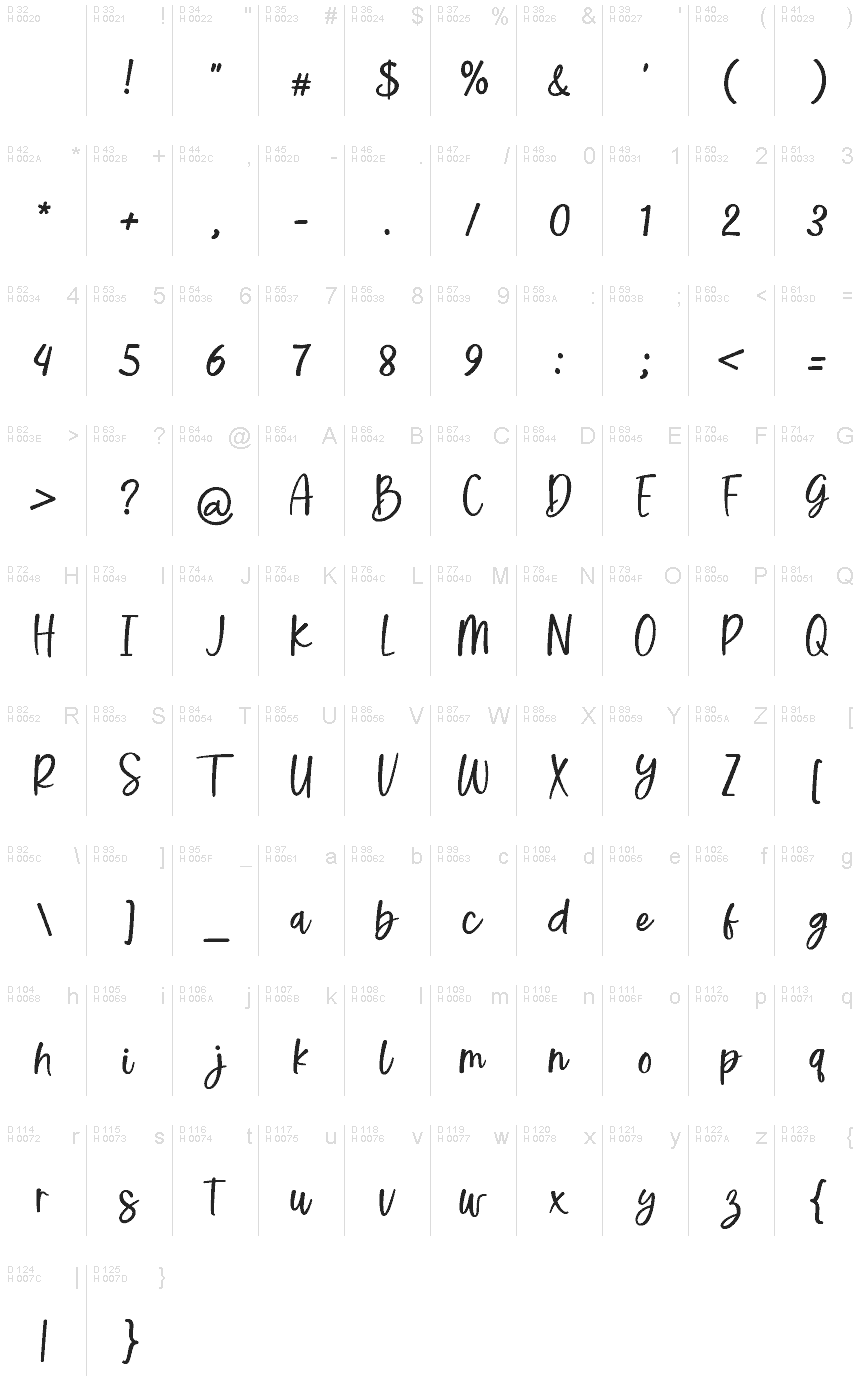
WisdomVacation
Wisdom Vacation font by UI Creative is a free handwritten font with a contemporary, casual, and friendly appearance. This expressive typeface presents modern handwriting style arrangements and is characterized by a unique playful typography design. It maintains clarity for reading purposes with artful decorative elements that are perfectly aligned with the main base of the letters.
Suitable for many uses, Wisdom Vacation can be found on logos, labels, packaging boxes/bags and paper cups used in cafés or restaurants. The playful characters can complement posters and flyers for promotions or announcements. Ideal for offline as well as online projects, have fun exploring different themes from this gorgeous script!